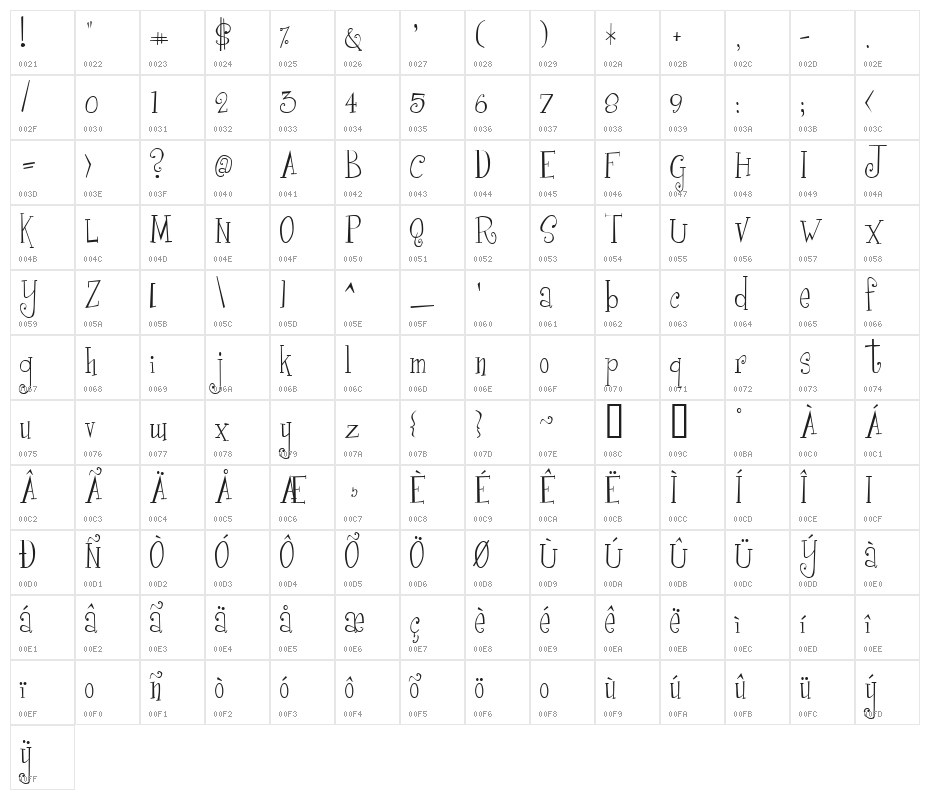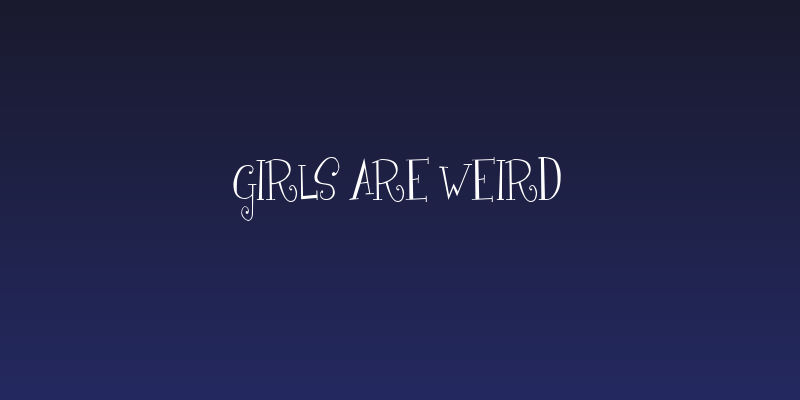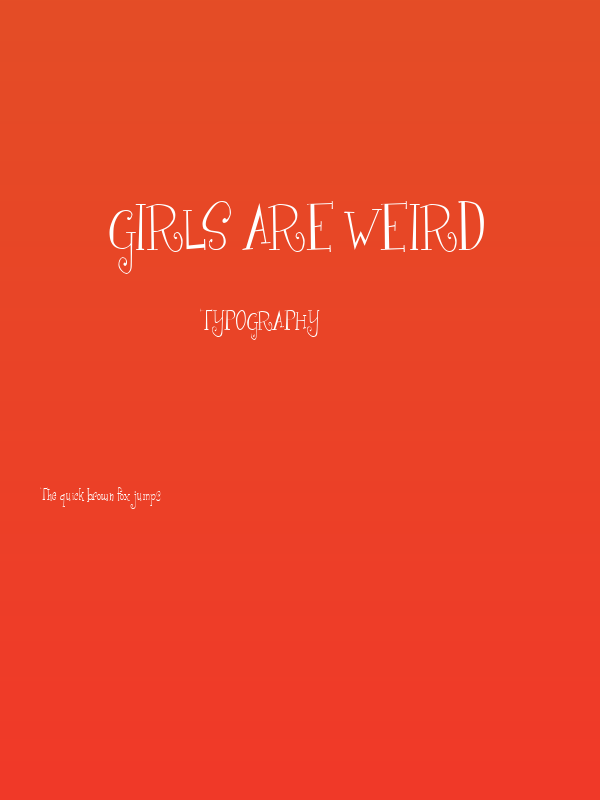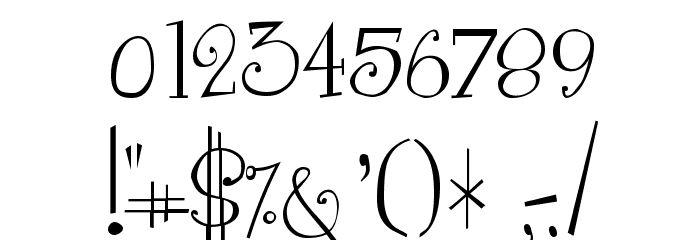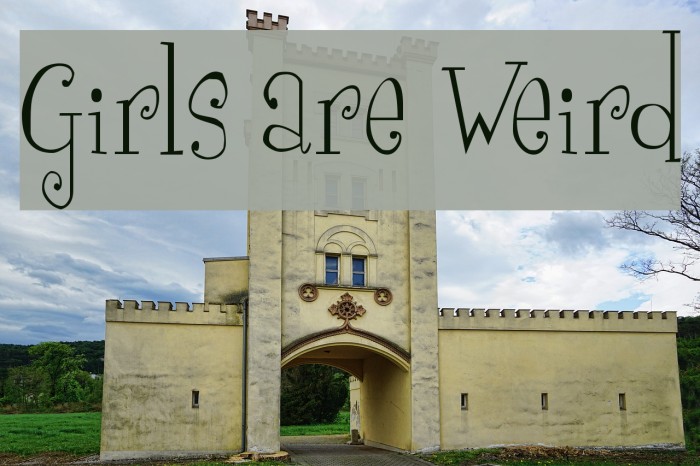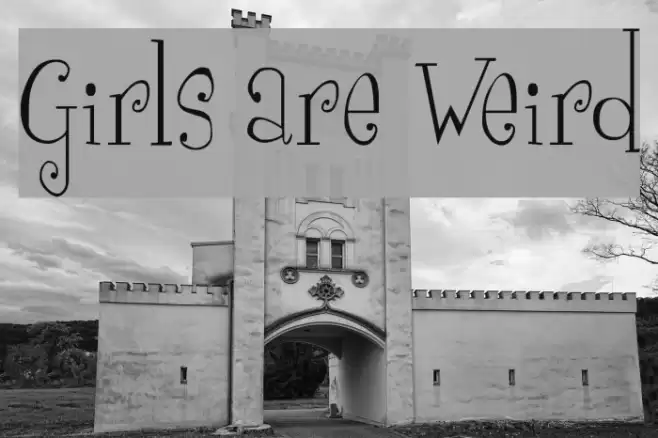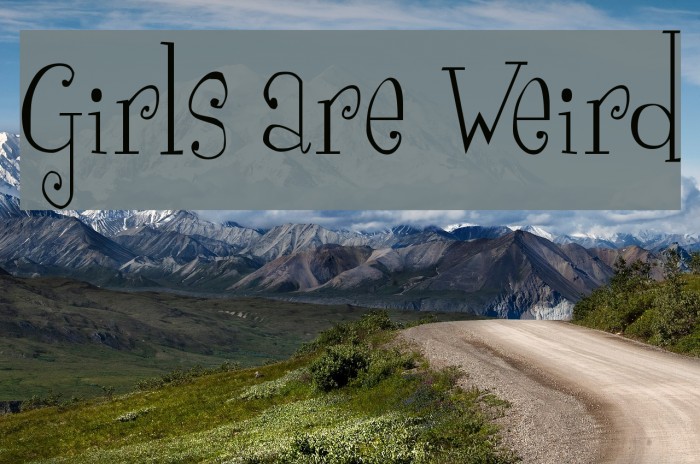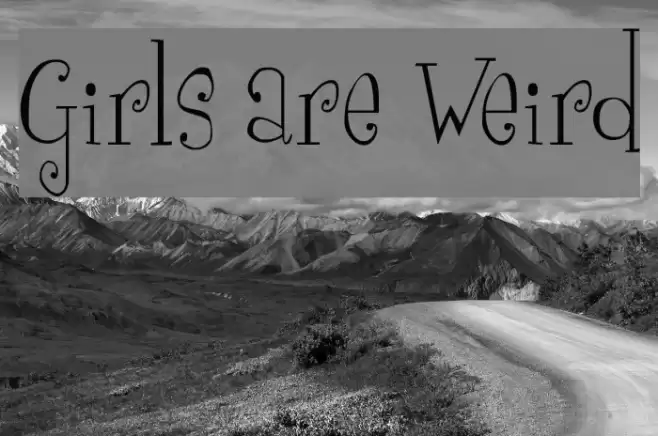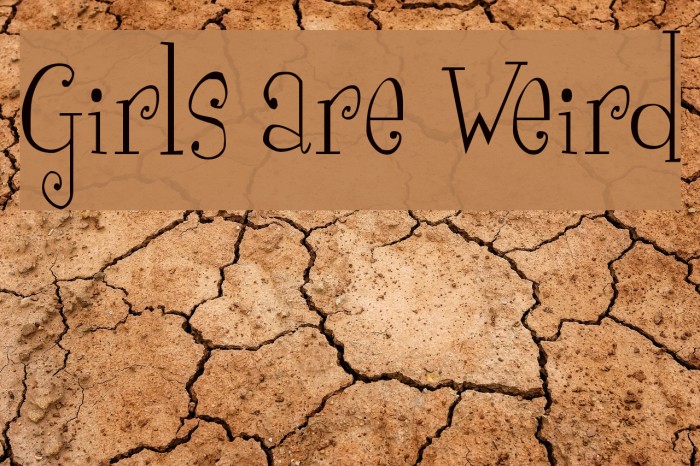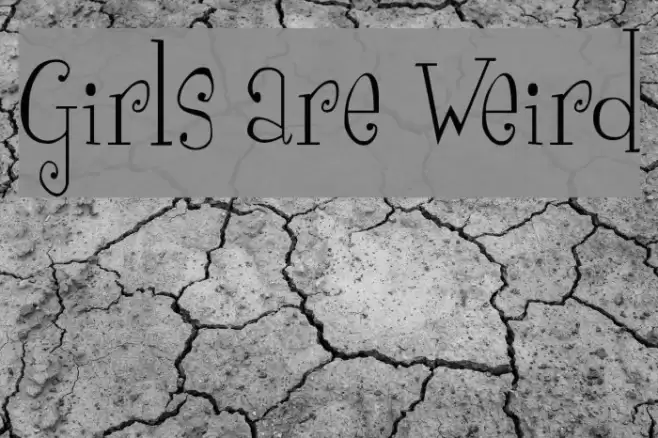
Girls are Weird Font
Girls are Weird Description
This whimsical and playful font features a unique blend of quirky elements and elegant lines. The uppercase letters are tall and slender, with some characters incorporating swirls and curls that add a touch of whimsy. The lowercase letters maintain a similar style, with a mix of straight and curved lines that create a harmonious balance. Numbers and special characters follow the same playful design, making them stand out with their distinctive flair. The overall appearance is both fun and sophisticated, making it suitable for creative projects.
| Use Case | Headlines, Logos, Creative projects |
| Proposed Projects | Ideal for children's books, playful branding, creative invitations, and artistic posters. |